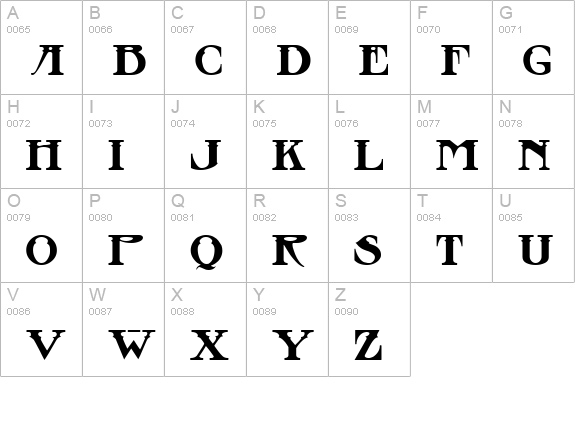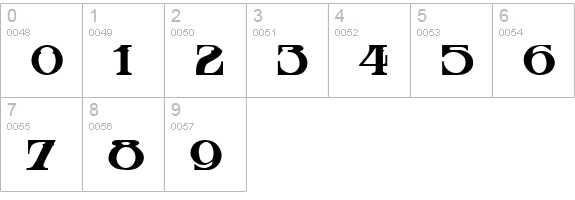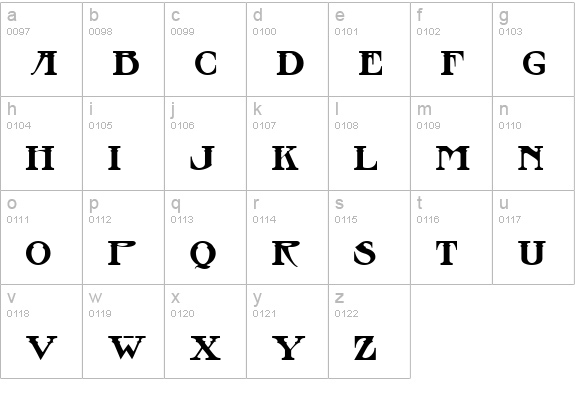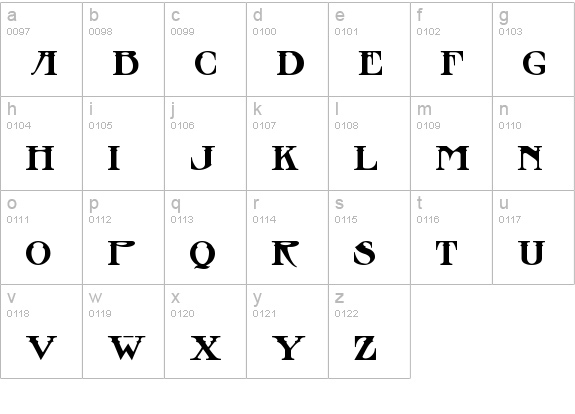
Stowaway Regular is the standard, neutral variant in the Stowaway typeface family \xE2\x80\x94 well suited to general body text, paragraphs, and standard typographic work.
Stowaway Regular font exudes a sense of elegance and charm with its classic yet modern design. This versatile typeface is perfect for a wide range of design projects, from invitations to logos to branding materials. Its clean lines and balanced proportions make it easy to read and pleasant to look at. What's even better is that Stowaway Regular font is available for free download at FontsMarket.com. This means you can easily access this beautiful font and use it in your projects without any cost. Whether you're a professional designer or a hobbyist looking to spruce up your creations, Stowaway Regular font is a fantastic choice that won't break the bank. Don't miss out on the opportunity to elevate your designs with the timeless appeal of Stowaway Regular font. Download it for free today and let your creativity shine!